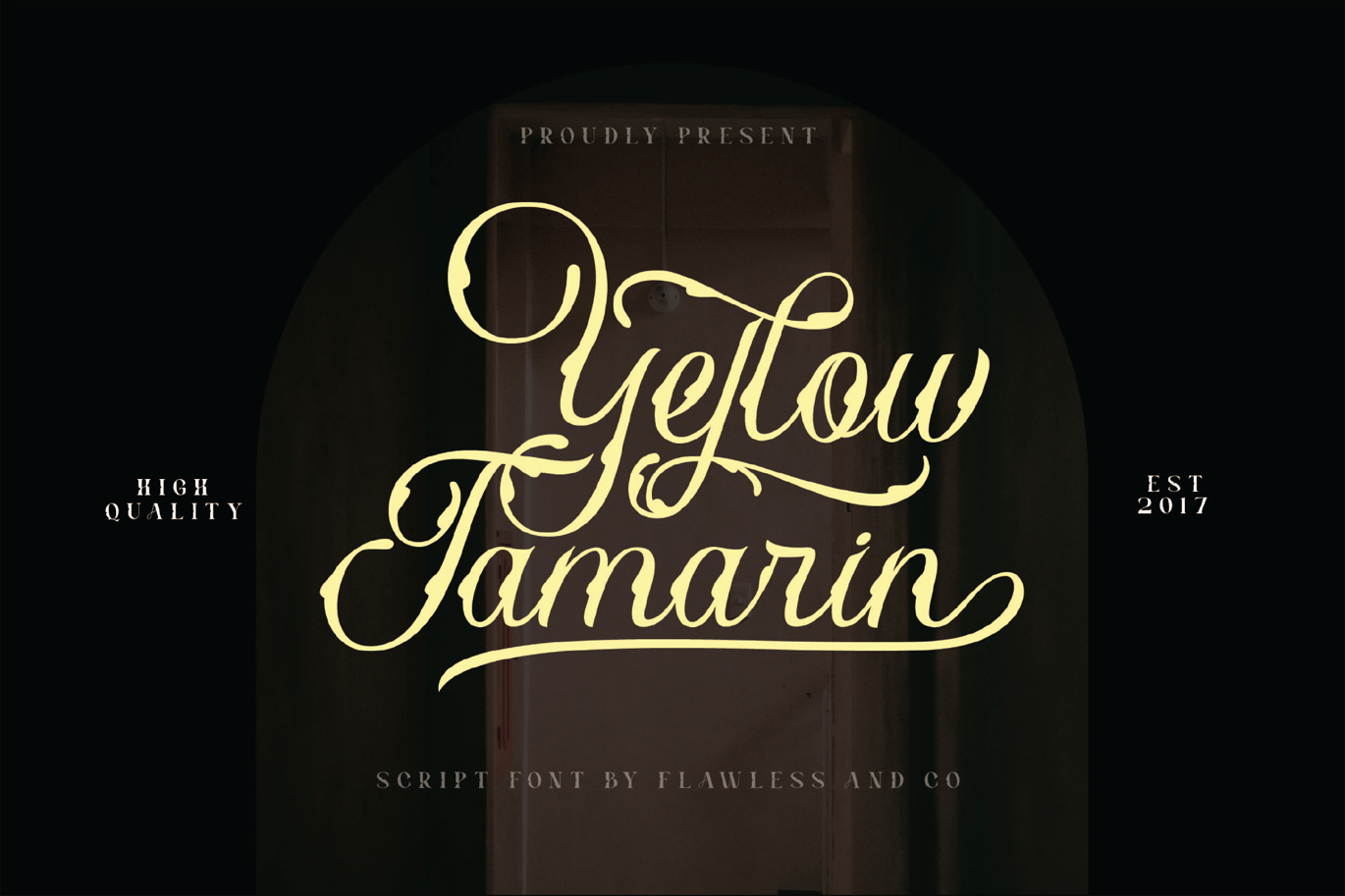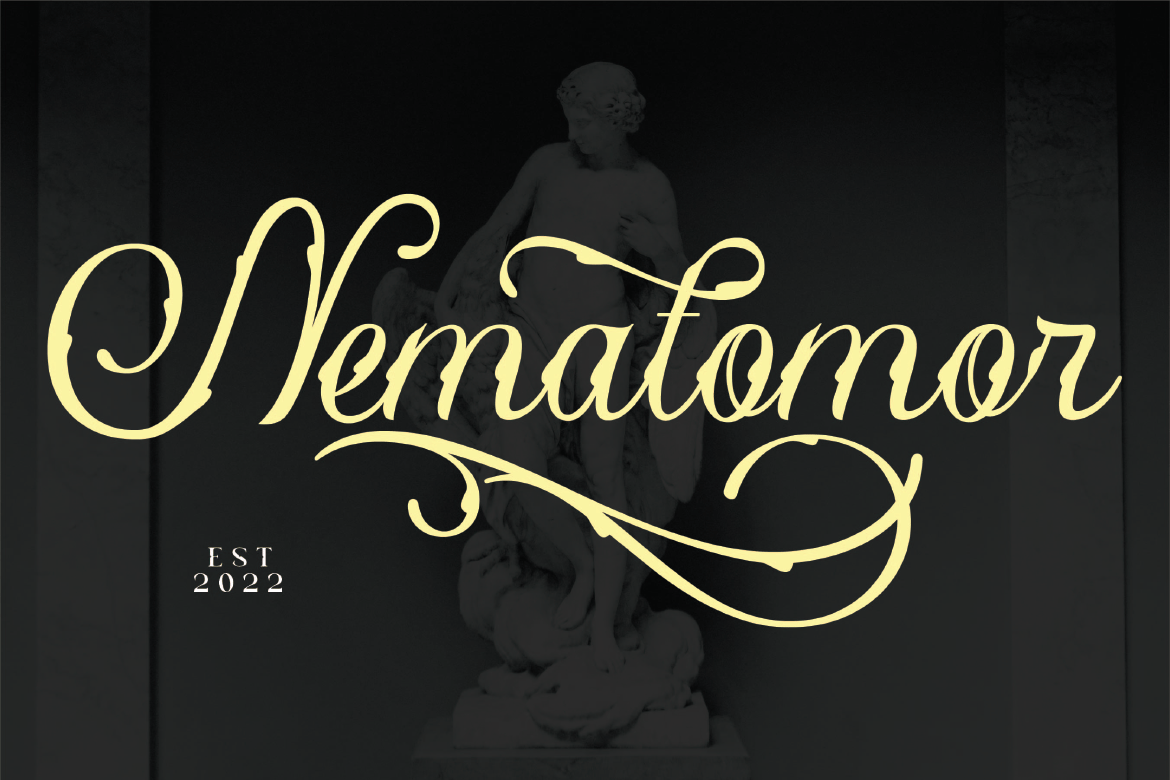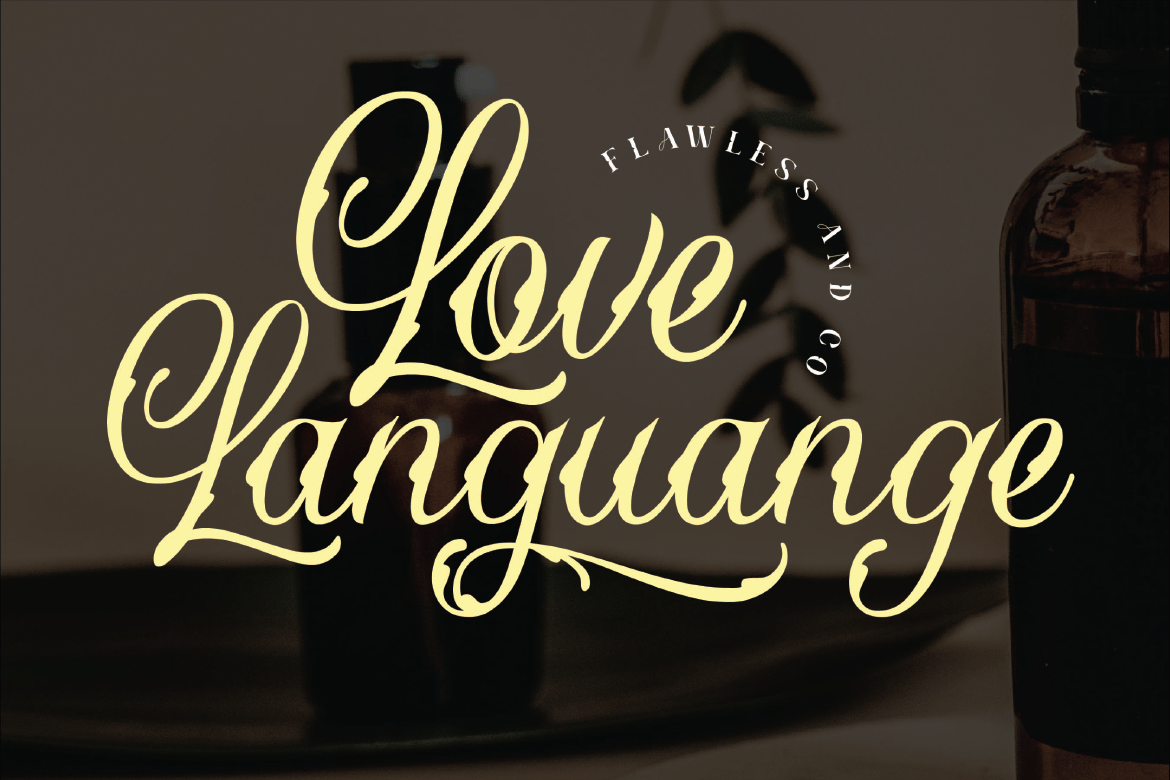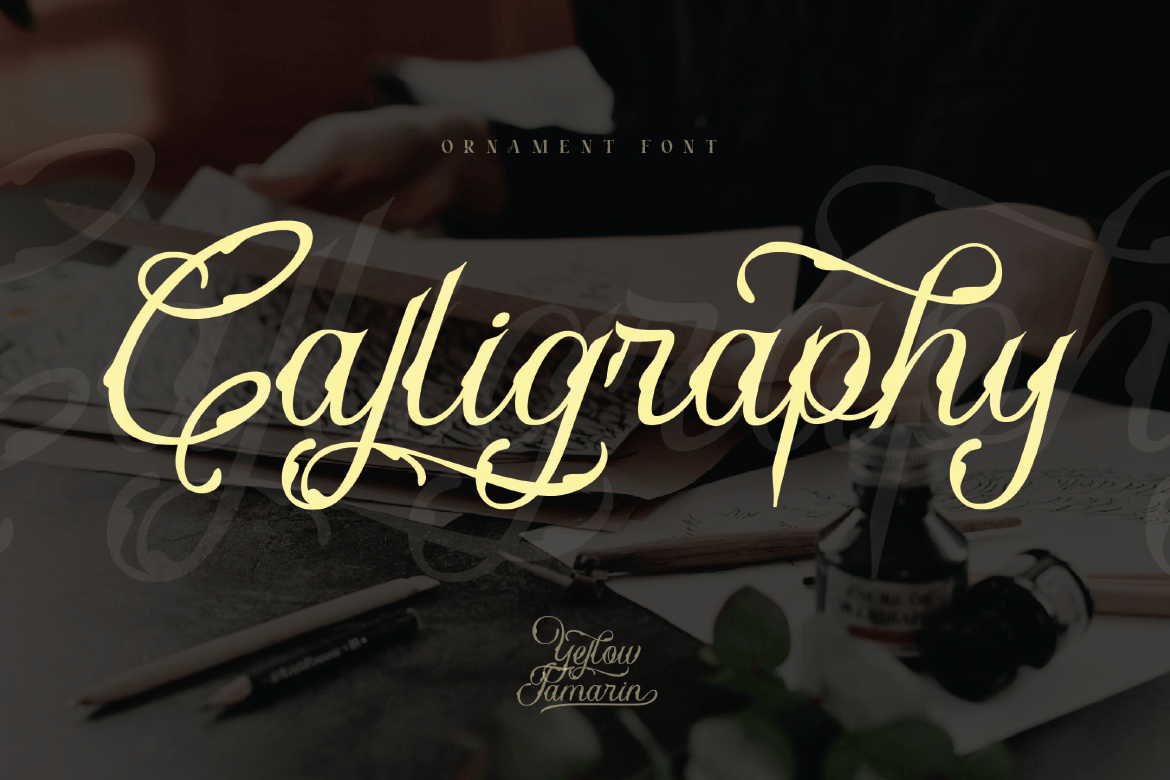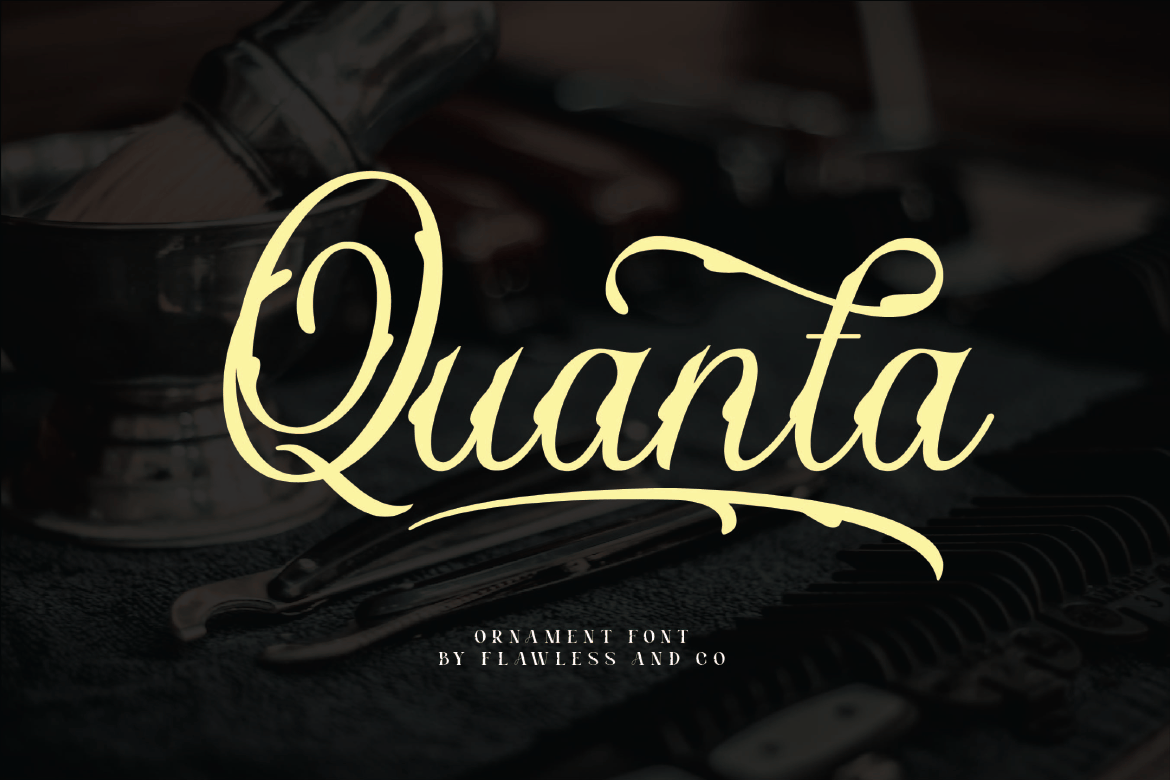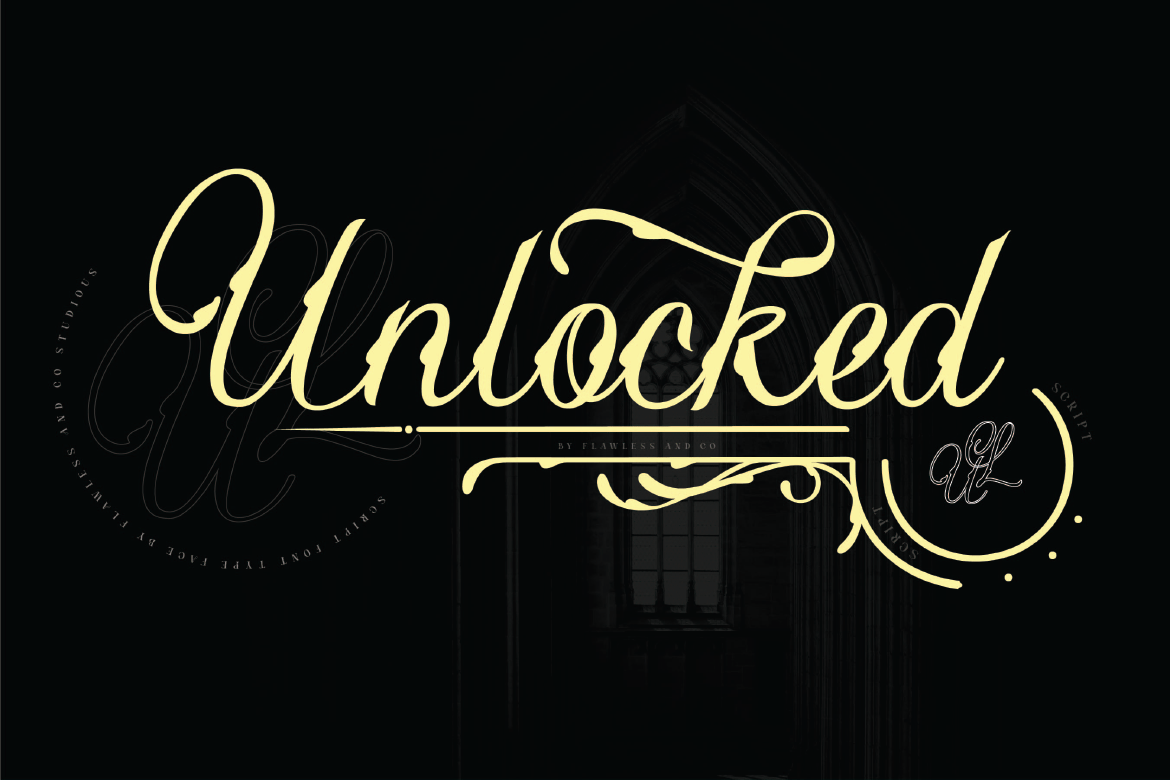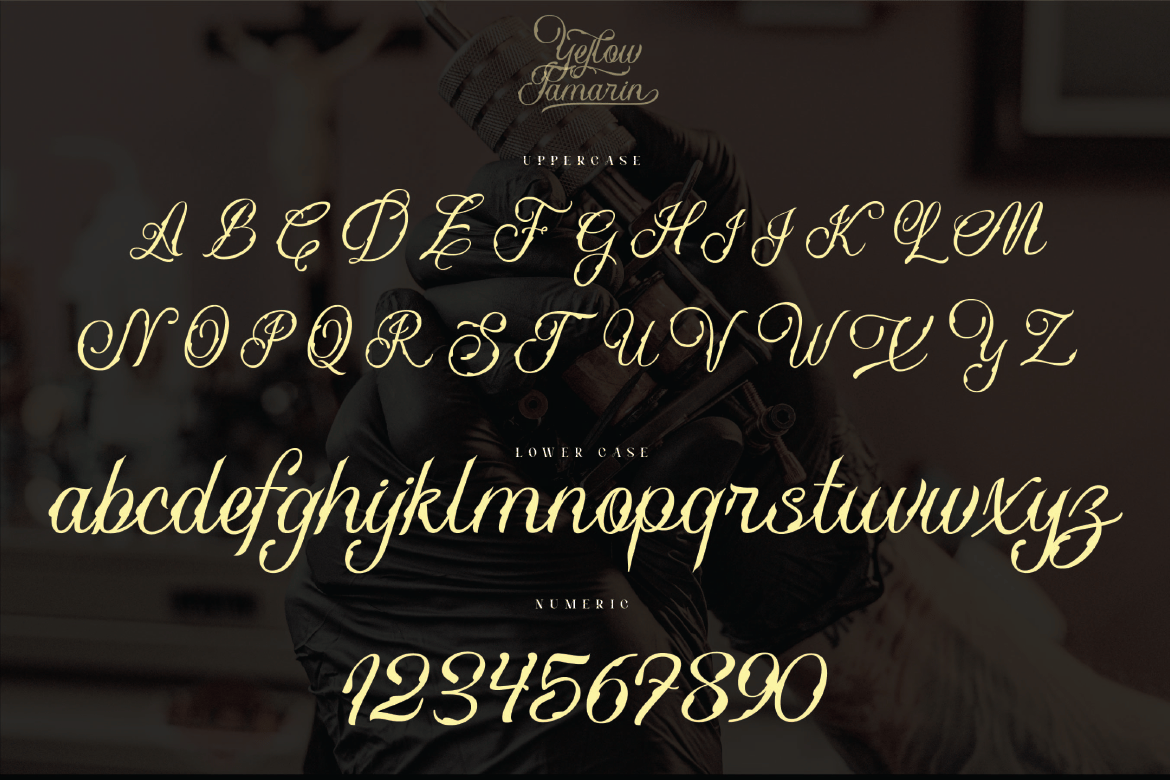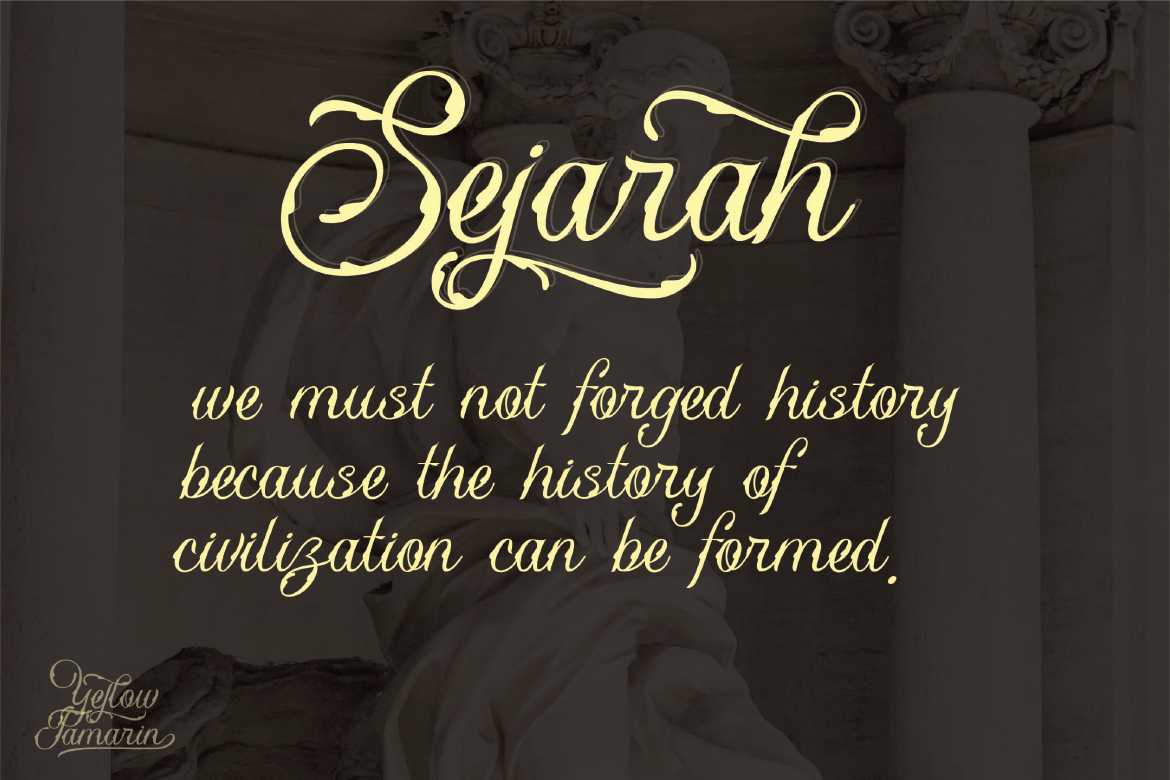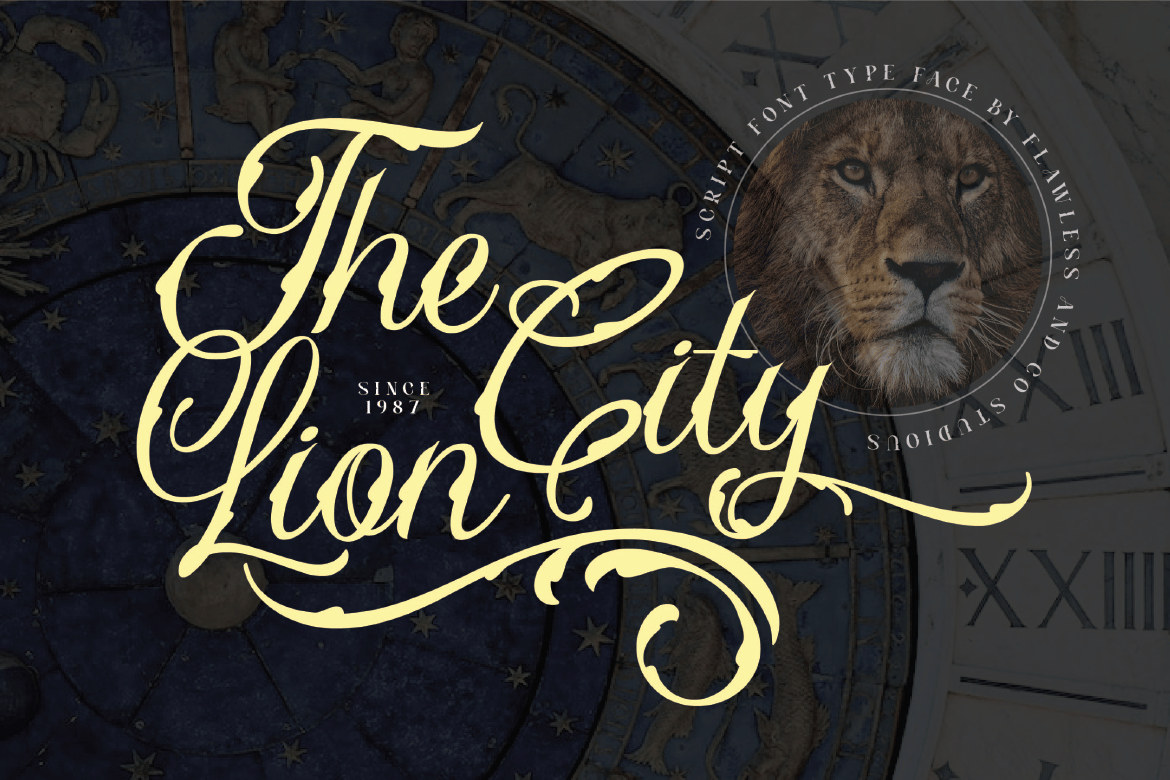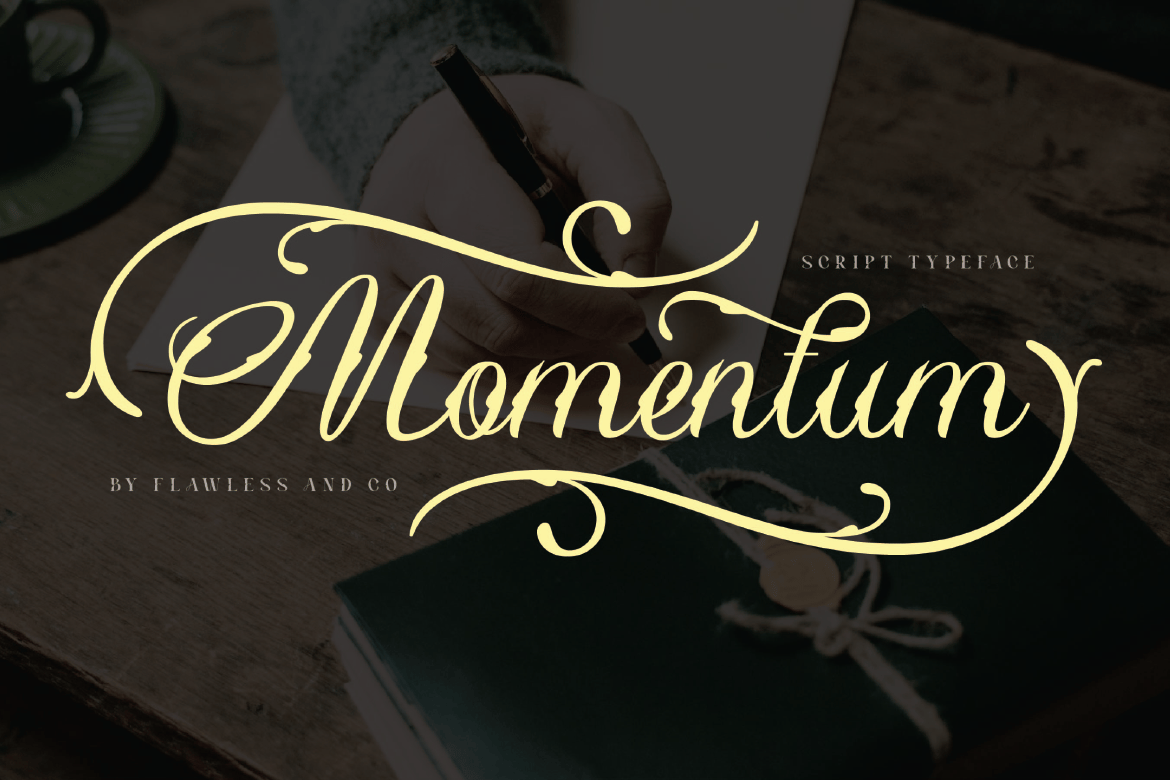
Yellow Tamarin Blackletter Tattoo Font
Introducing our new “Yellow Tamarin” Modern Blackletter Font with a calligraphy Style that is perfect for your design such as branding materials, tattoo designs, t-shirts, posters, and others.
Alternate Character